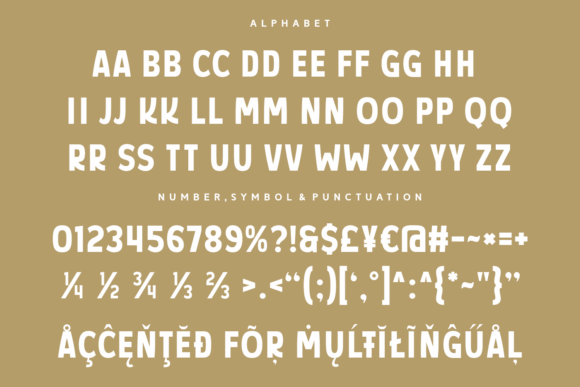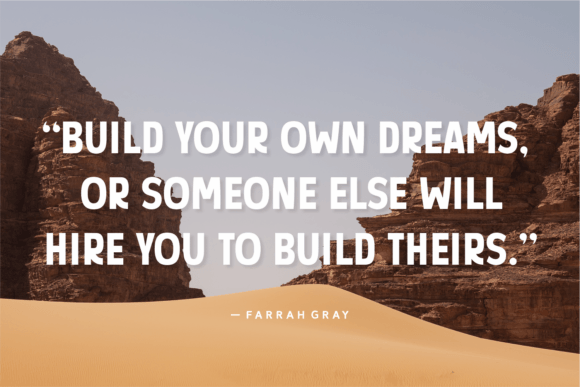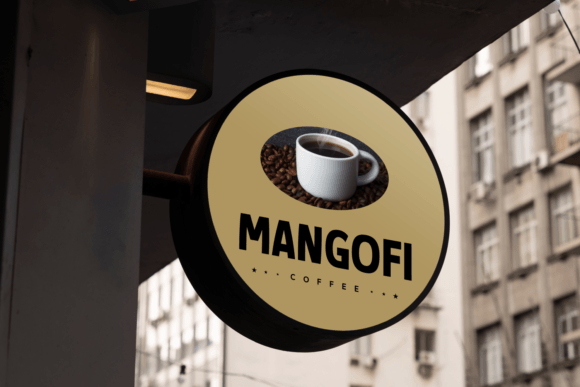
Introduction to Rolexsy Font
Rolexsy is a sleek, modern sans-serif font that combines elegance with versatility.
Its clean lines and balanced proportions make it perfect for branding, headlines, and web design Rolexsy exudes sophistication, offering a timeless aesthetic ideal for contemporary projects and professional presentations.
Key Features of Rolexsy Font
Why Choose Rolexsy Font?
Rolexsy Font offers exceptional quality and versatility, making it a valuable addition to your design toolkit. Whether you’re creating for personal projects or commercial use, Rolexsy Font delivers professional results.